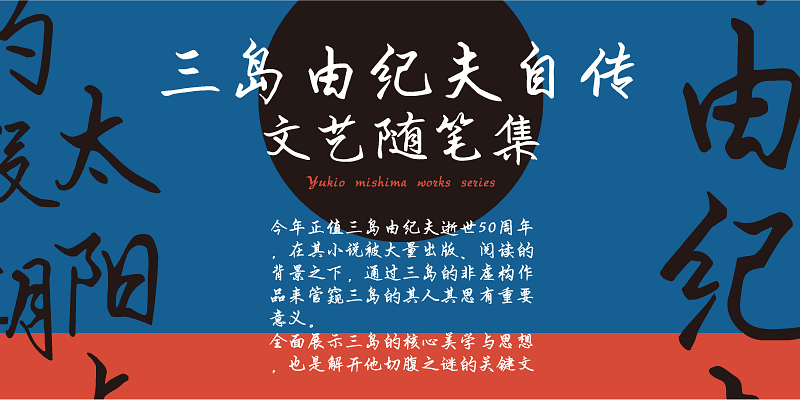
HelloFont ID Shan Shui Xing Kai Font Free Download is a distinctive and artistic font inspired by traditional Chinese calligraphy. With its fluid strokes and elegant brush-like details, this font is perfect for projects that require a culturally rich, artistic flair. It works well for branding, invitations, artwork, and any design that calls for a sophisticated yet creative touch.
HelloFont ID Shan Shui Xing Kai Font provides a balance between style and legibility, making it ideal for both display and body text. It integrates seamlessly with popular design tools like Adobe Illustrator, Photoshop, Figma, and Canva, allowing for flexibility across both print and digital applications.